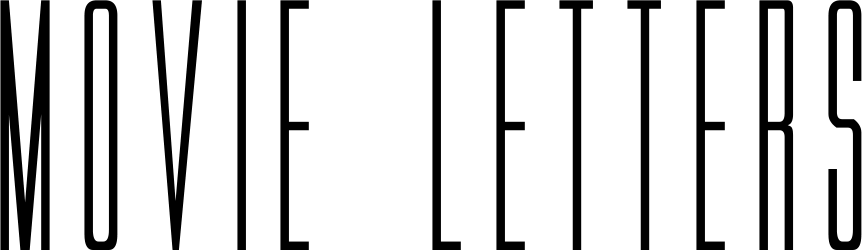
Movie Letters Font
Texts, websites, apps, signages, movies, and user interfaces are the places where you need to use a font that is contemporary and modern. We offer you Movie Letters font and you are going to enjoy working with it.
This free condensed font has an incredible collection of characters which contains the uppercase of the alphabet, the numbers, and the punctuation marks.